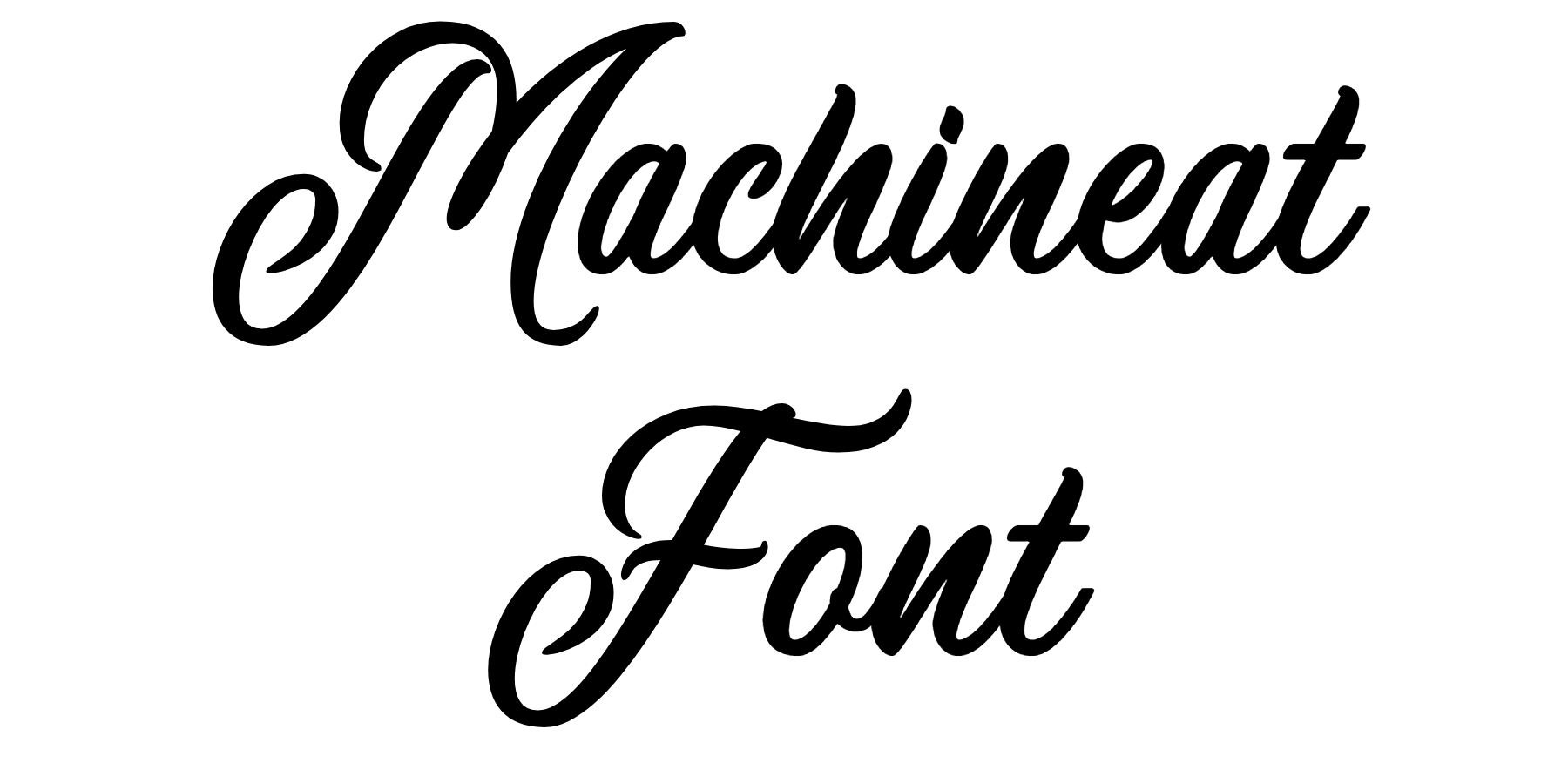
Machineat
Machineat is a calligraphy font created by Wacaksara Co (2018). Its flowing, pen-made letters give names and short phrases a personal, polished look. It's a free download, and you can try it with your own text in the preview above first.
- Designer: Wacaksara Co
What You Can Type With Machineat
You get every letter from A to Z in both cases and all the numbers from 0 to 9, which means Machineat can handle full sentences, dates and prices. Common punctuation such as &, !, ? and @ is included as well. It also has the accented letters you need for Spanish, French, German, Portuguese and Italian.
Where Machineat Works Best
Think of Machineat for wedding invitations, certificates and elegant quotes. Its lowercase letters are small compared to the capitals, so set it a size or two bigger than usual. Script fonts read best in short bursts, so keep it to names, titles and one-line quotes. Skip all caps: script capitals are drawn to start a word, not to fill one.
Who designed Machineat font?
Does Machineat support accented letters?
Yes. Machineat includes the accented letters needed for Spanish, French, German, Portuguese and Italian, so it works for more than just English.